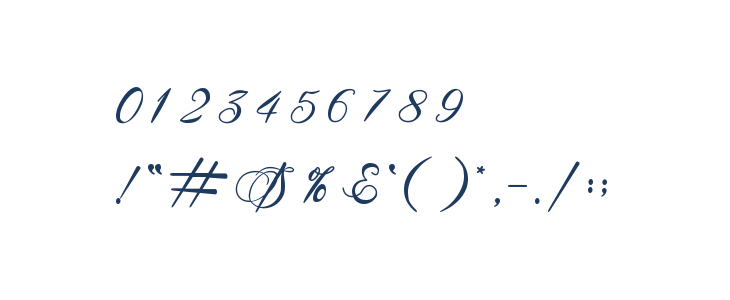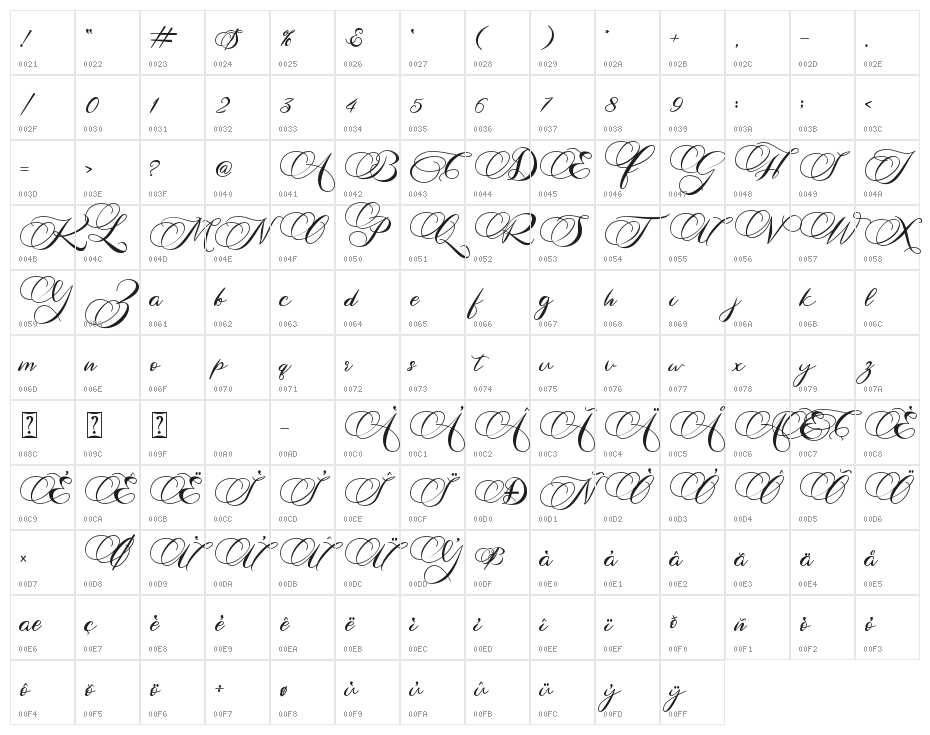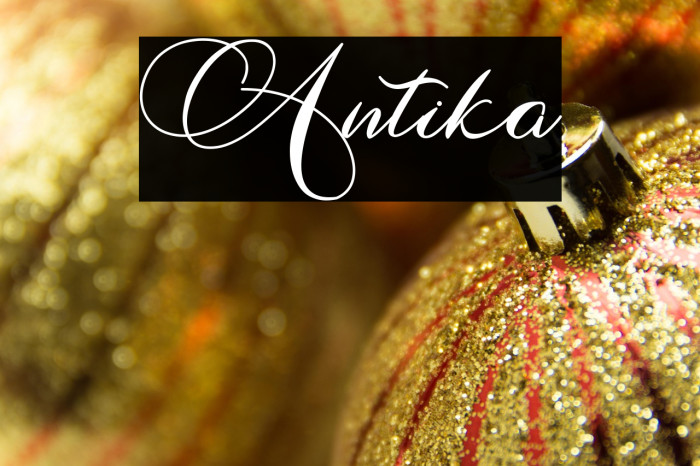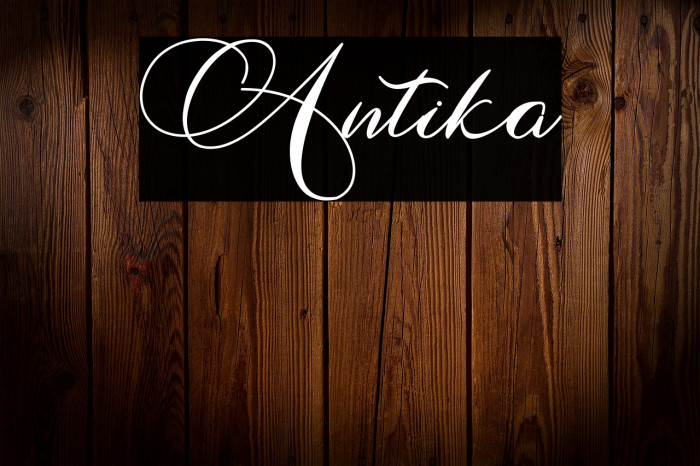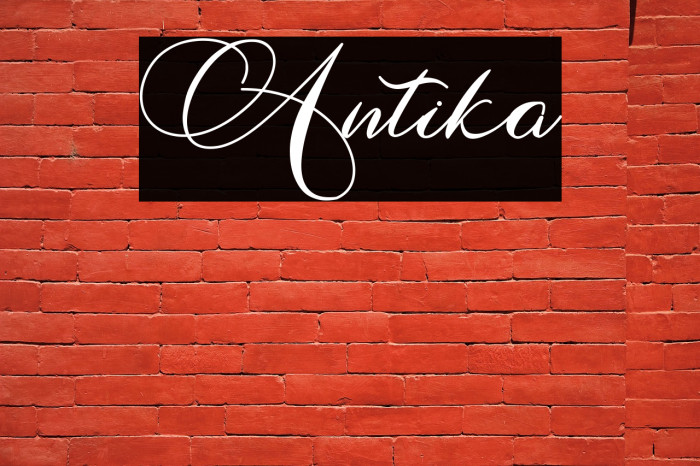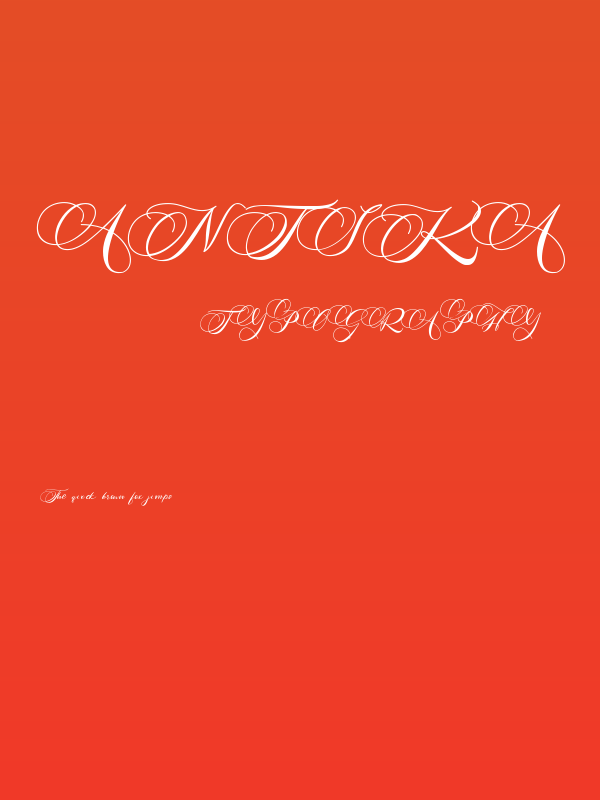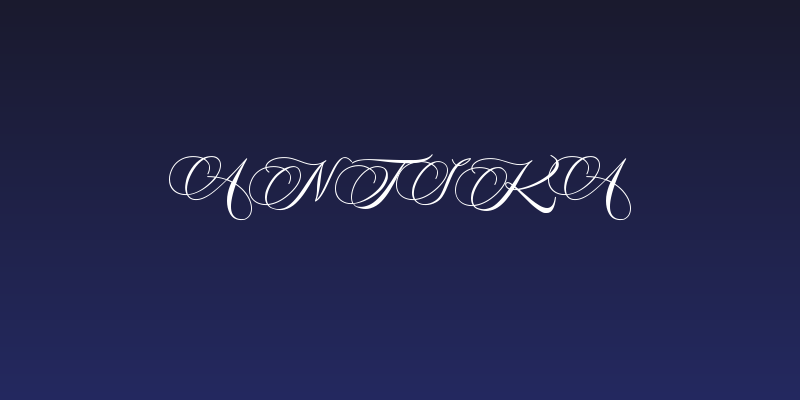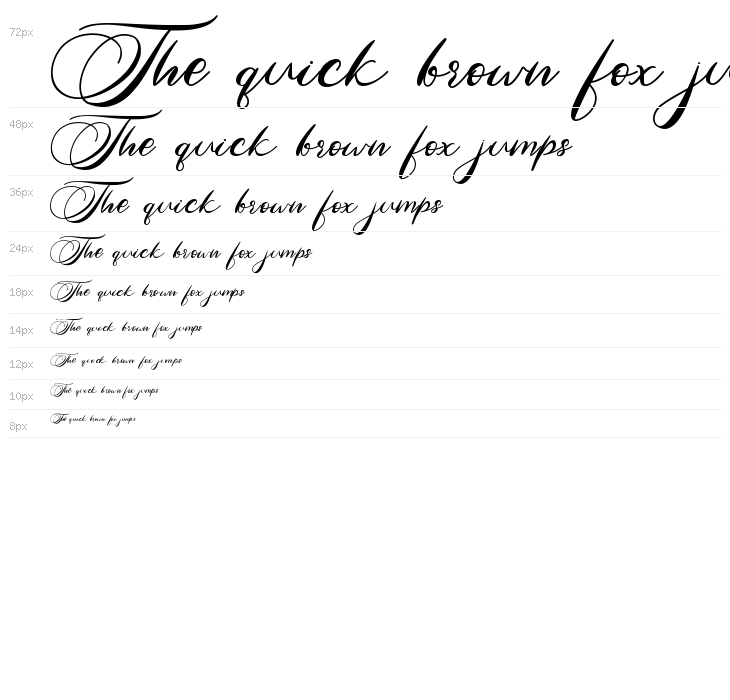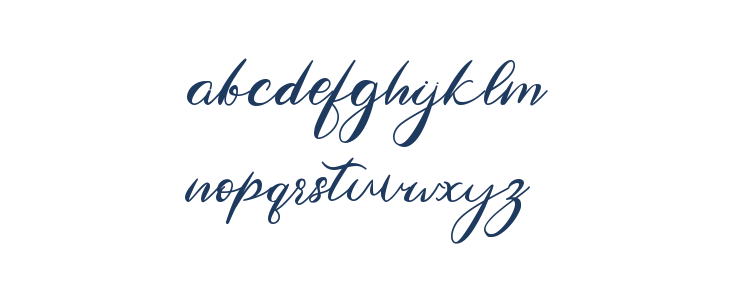
Antika Font
Antika Description
This font features an elegant and sophisticated script style with intricate swirls and flourishes. The uppercase letters are highly decorative, with each character exhibiting unique loops and curves that give it a luxurious feel. The lowercase letters maintain a fluid and graceful appearance, making them perfect for adding a touch of elegance to any design. The numerals are consistent with the script style, offering a cohesive look across all characters. Special characters are also designed with the same attention to detail, ensuring they blend seamlessly with the rest of the font. This font is ideal for projects that require a touch of class and refinement.
| Proposed Projects | Wedding invitations, luxury branding, elegant stationery, and high-end product packaging. |